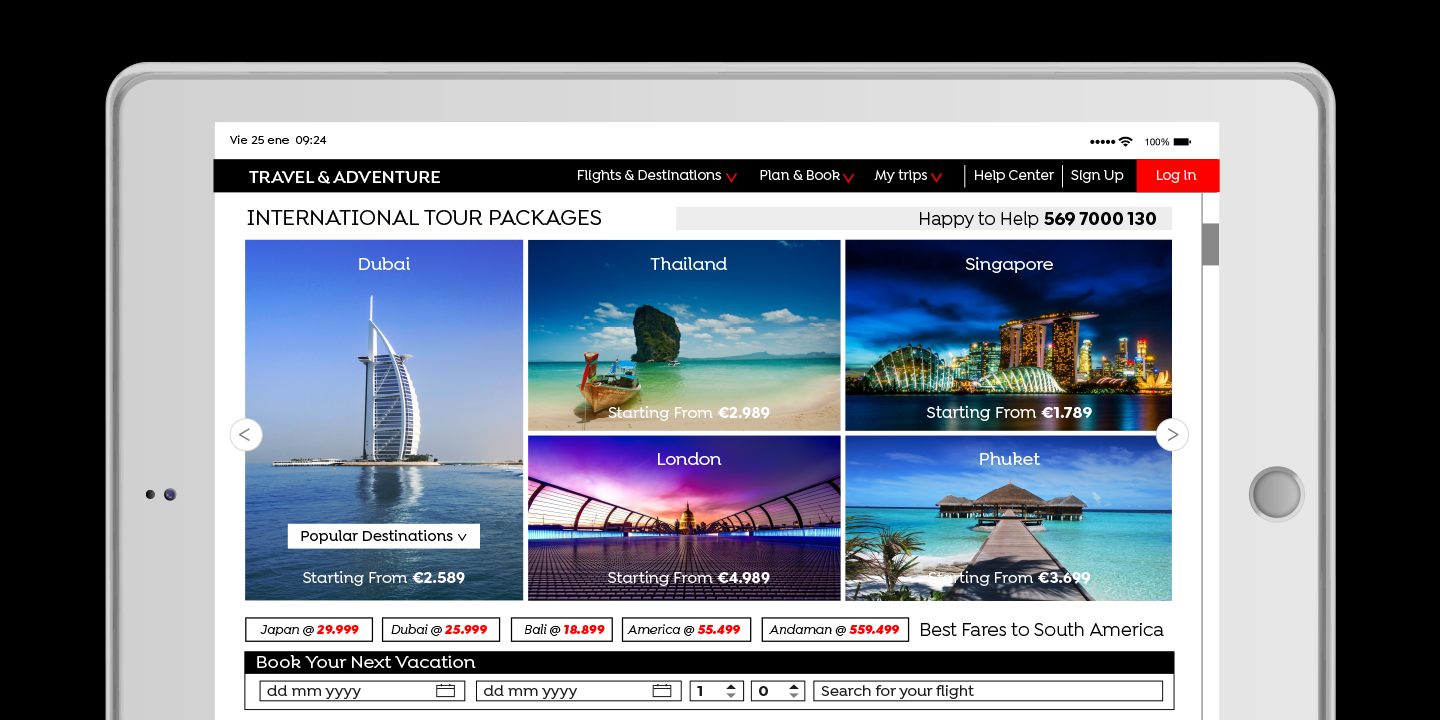
Isidora Soft Free Download
Isidora Soft Font Free Download
Isidora Soft Font Free Download is a friendly and approachable sans-serif font characterized by its rounded edges and smooth curves. Please note: you must purchase a license for commercial use — this font is available as a free download for personal and testing purposes only.
Ideal for branding, user interfaces, children’s books, packaging, web design, and advertising, Isidora Soft Font Free Download adds warmth and accessibility to your creative projects.
What makes this font exciting is its perfect balance between professionalism and friendliness, thanks to its soft, rounded shapes that enhance readability without losing style.
The Isidora Soft font family includes multiple weights from Light to Bold, allowing designers to build versatile and cohesive typographic hierarchies with ease.
If you want to infuse your designs with a modern, warm, and inviting personality, Isidora Soft Font Free Download is an excellent choice. Download it today, explore its smooth forms, and let your projects communicate with charm and clarity.